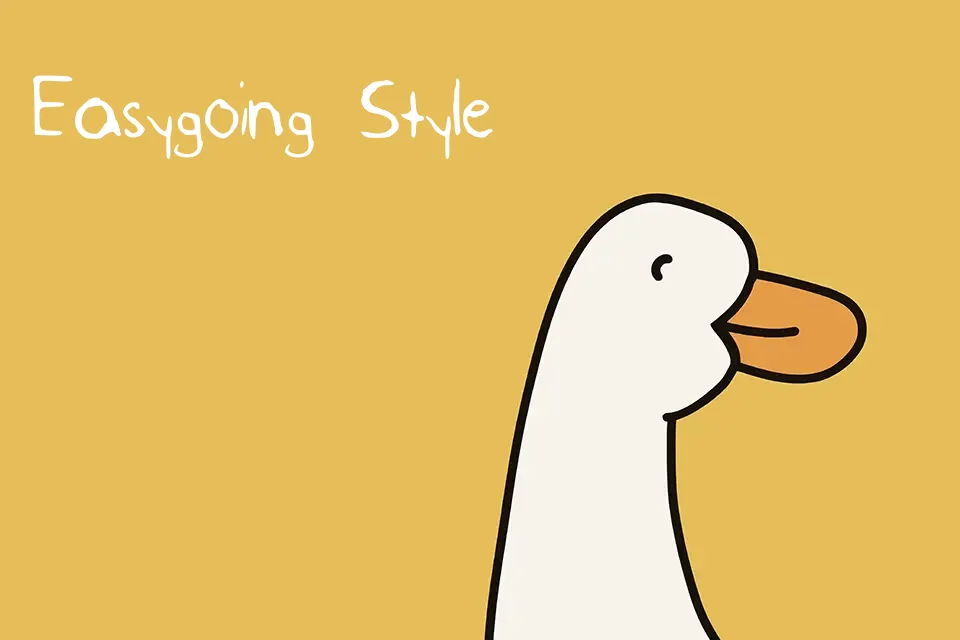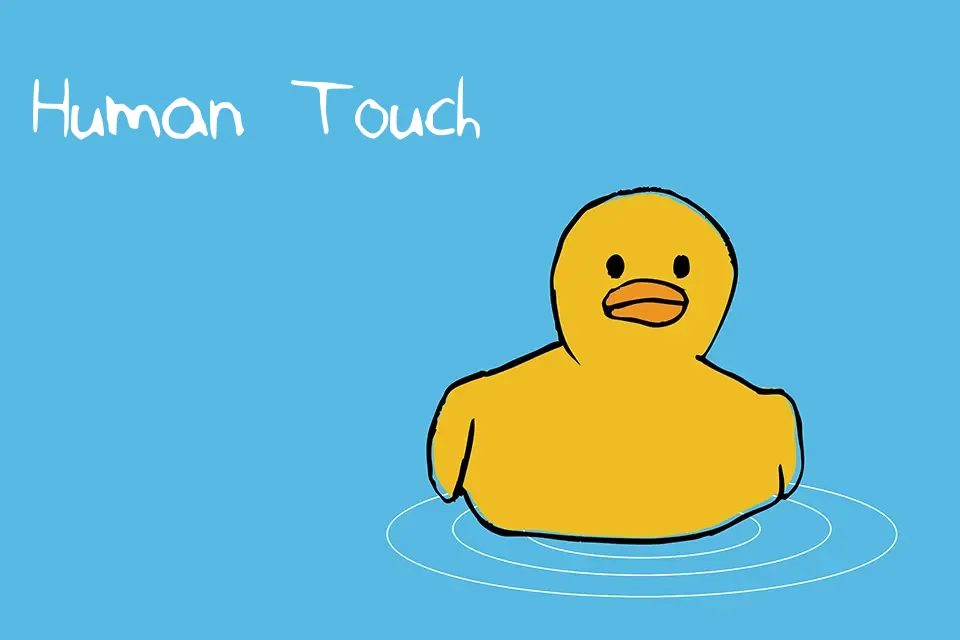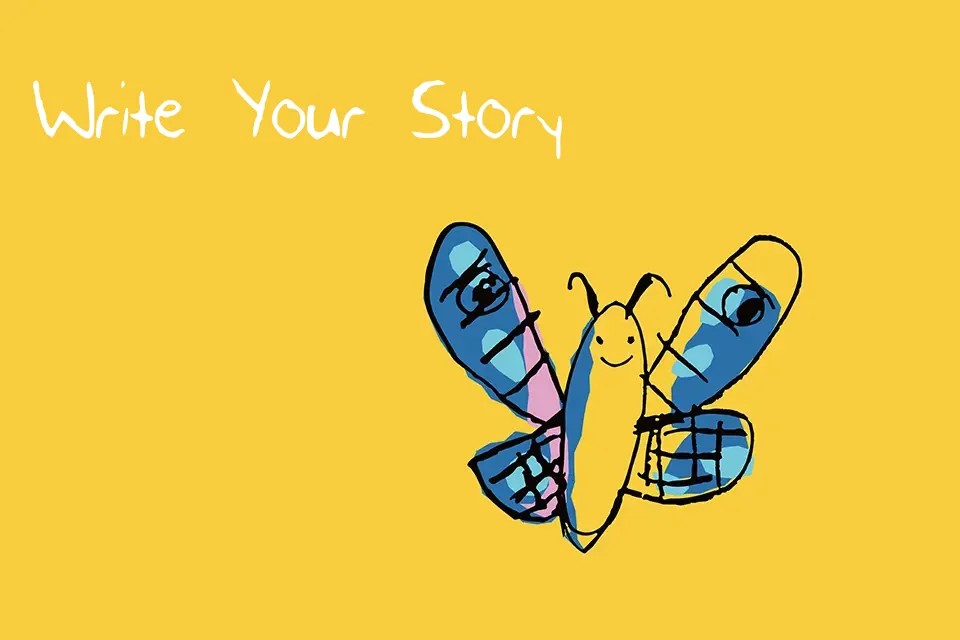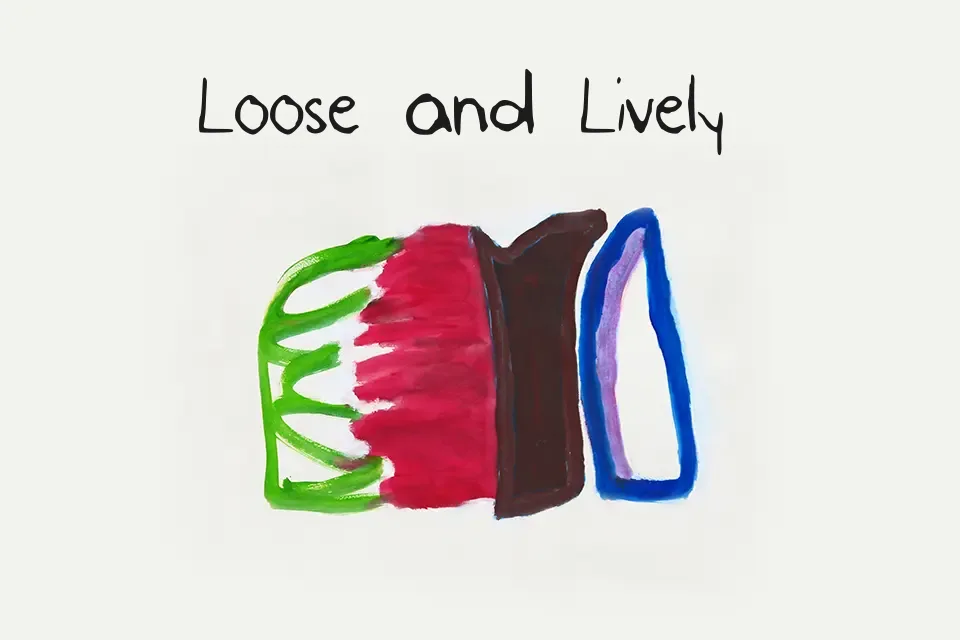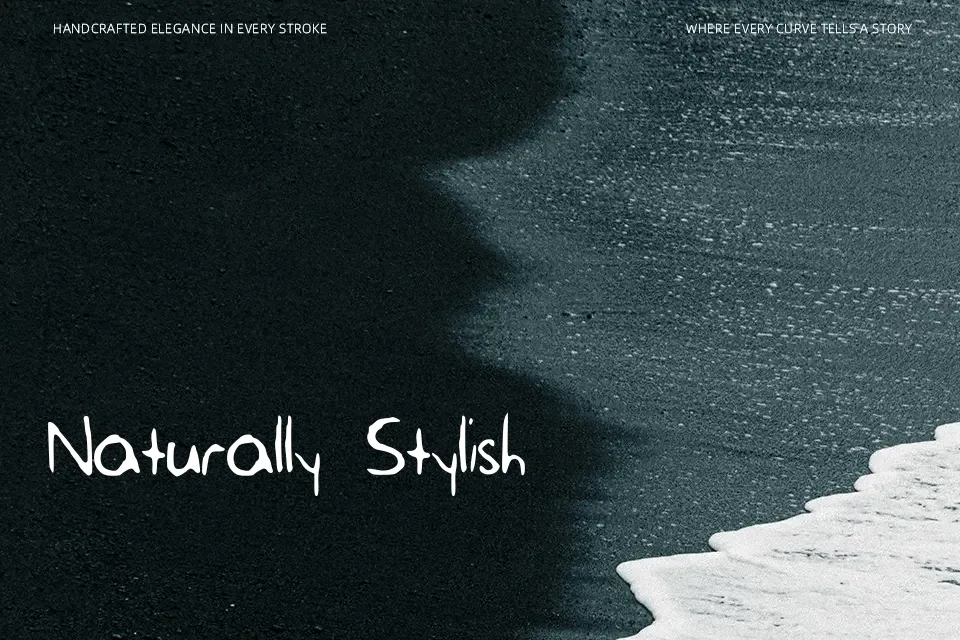
SLF Handwriting Font
Designed by Sophie Fraser
Featuring relaxed and irregular letterforms, SLF Handwriting Font provides a casual aesthetic reminiscent of everyday marker scribbles. The design relies on monoline stroke weight with subtle curves and open counters, giving individual glyphs an approachable feel. Loose spacing across characters enhances readability in short phrases and informal display settings, though character height variations become pronounced across longer lines. While the typeface performs reliably in comic strips, greeting cards, and craft headings, extended text blocks suffer from reduced reading comfort due to uneven rhythm. The letterforms ultimately succeed when applied to lighthearted graphics requiring a genuine handwritten tone.
Best For: comic strip dialogue, greeting card messages, children’s book titles, craft packaging labels
Not Ideal For: dense editorial paragraphs, corporate annual reports, technical documentation tables
Perfect for kids, packaging, and poster, with a creative and comic style.